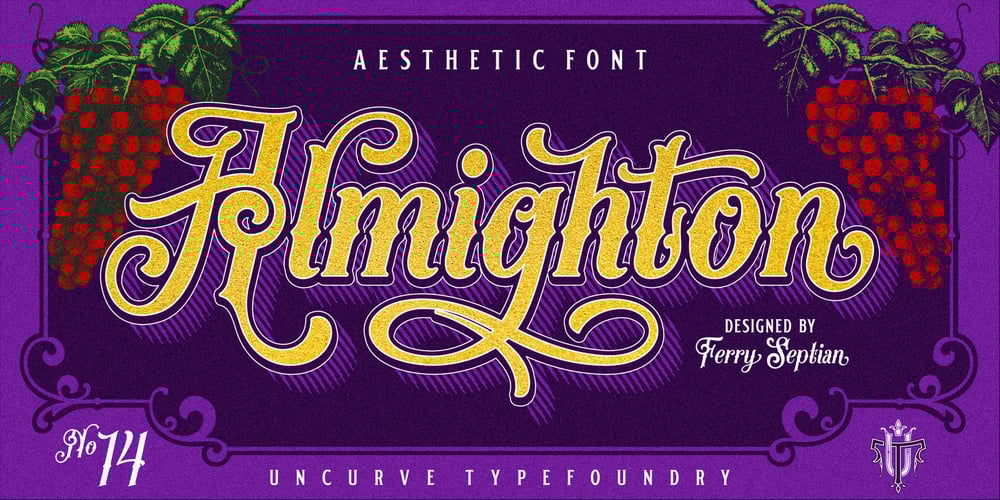
Almighton
Almighton font
Almighton Font Family was designed by Ferry Septian and published by Uncurve. Almighton contains 1 styles and family package options. Almighton is an aesthetic vintage typography font, inspired from the past, elegant signage, gold leaf , sign painting and old label product. Almighton comes with tons of alternates characters to make more eye cacthy .It is suitable for authentic logos, headings, sign painting, posters, letterhead, branding, magazines, album covers, book covers, movies, apparel design, flyers, greeting cards, product packaging, and more.